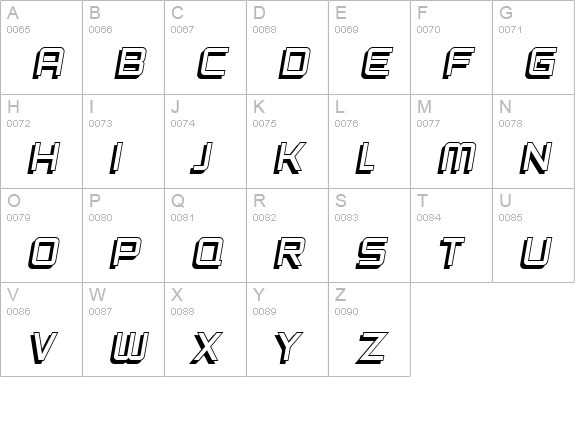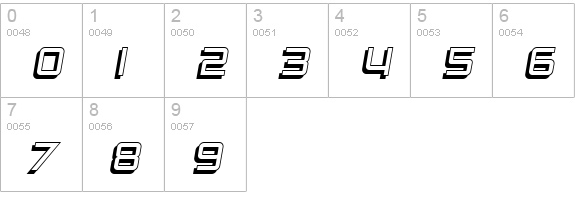
SF Fedora Titles Shadow Italic Font Details
SF Fedora Titles Shadow Italic is a distinctive, italic variant in the SF typeface family \xE2\x80\x94 well suited to design and typography projects.
The SF Fedora Titles Shadow Italic font is a stylish and modern typeface that exudes sophistication and elegance. Its bold, italicized design gives a unique and eye-catching appearance, making it perfect for headlines, titles, and other display purposes. With its sleek shadows adding depth and dimension, this font is sure to make a statement in any design project. The best part is that this font is completely free to download at FontsMarket.com. Whether you're working on a personal project or a professional design, you can easily access this versatile typeface without any cost. So why wait? Elevate your designs with the SF Fedora Titles Shadow Italic font today!